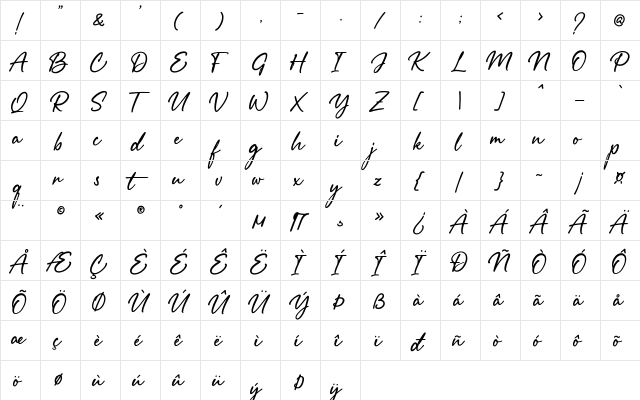
Manta Style Script DEMO Regular
Design Context for Manta Style Script DEMO Typeface
Manta Style Script DEMO flows with the natural rhythm of handwritten lettering, making it ideal for designs that call for warmth and personal expression.
Font Pairing: Combine Manta Style Script DEMO with a simple geometric sans for maximum contrast — the tension between flowing curves and clean structure is a classic typographic pairing.
Pro Tip: Use Manta Style Script DEMO for short runs of text — names, titles, or taglines. Extended body copy in script faces tires the eye quickly.